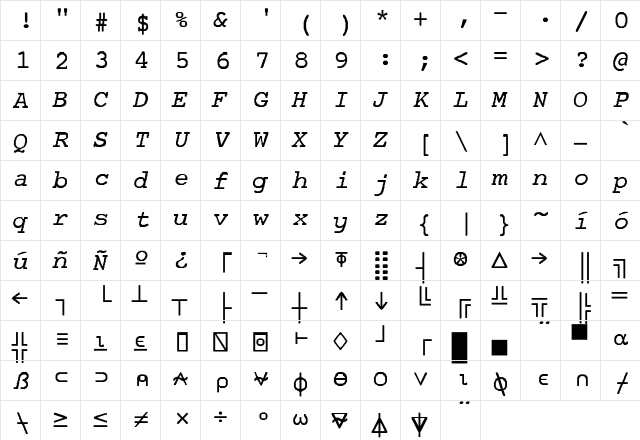
APL-Normal Regular
Design Context for APL-Normal Typeface
APL-Normal takes a measured approach to typography — its balanced proportions and neutral character make it a reliable workhorse for both digital and print work.